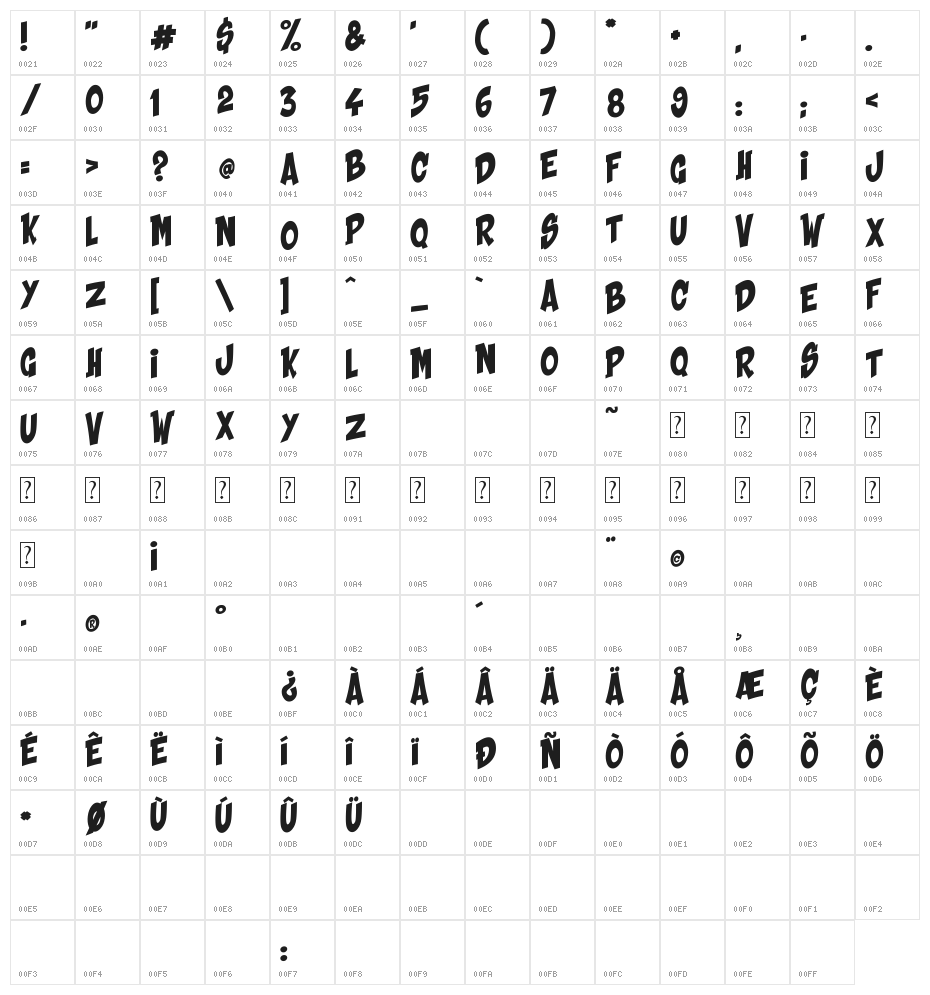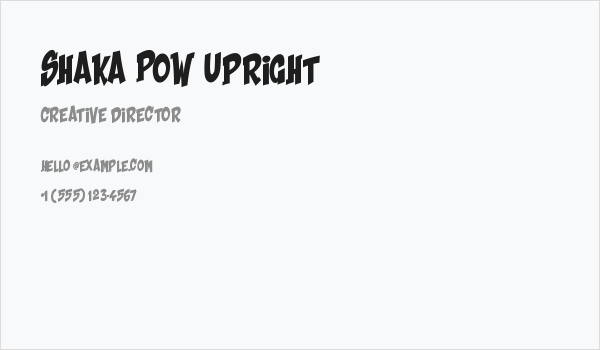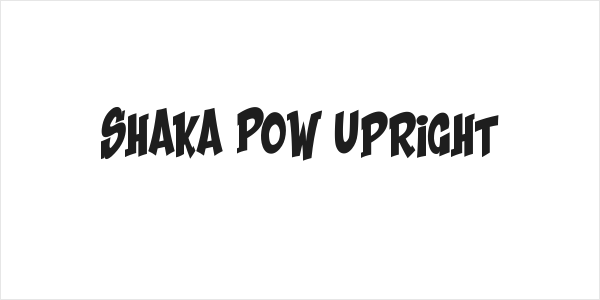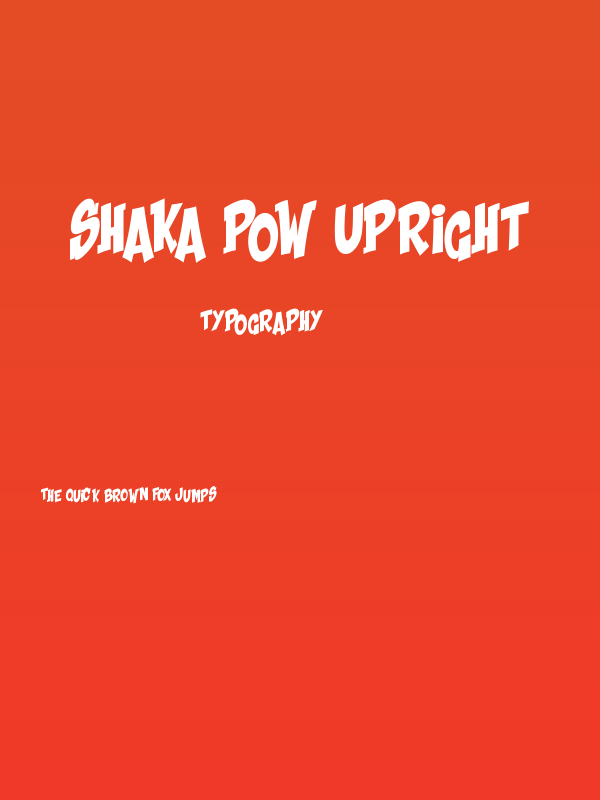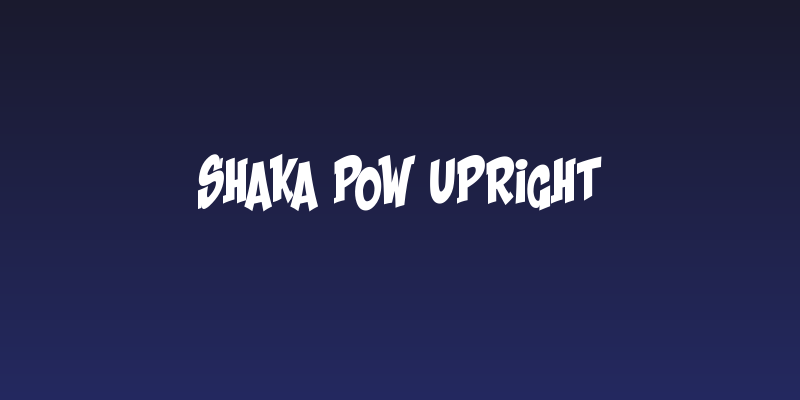
Shaka Pow Upright Font
Shaka Pow Upright Description
This font features a bold and energetic style with exaggerated, angular letterforms that convey a sense of movement and excitement. The uppercase and lowercase letters are both dynamic and slightly irregular, adding a playful and informal touch. The numbers and special characters maintain this lively aesthetic, making the font ideal for attention-grabbing designs. The strokes are thick and consistent, providing a strong visual impact. The overall appearance is reminiscent of comic book or graffiti art, with a modern twist that makes it suitable for contemporary projects.
| Proposed Projects | Perfect for comic books, posters, branding for youth-oriented products, and any project needing a lively, informal touch. |